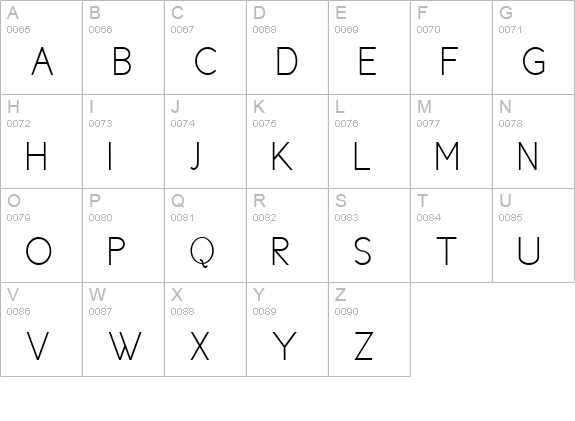
New Cicle Fina font is a modern and elegant typeface that exudes sophistication and style. With its delicate and refined letterforms, this font is perfect for creating a polished and professional look in your design projects. The thin strokes and graceful curves of New Cicle Fina add a touch of elegance to any text or headline. What's even better is that New Cicle Fina font is completely free to download at FontsMarket.com. You can easily access this beautiful typeface and enhance your designs without any cost. Whether you're working on a branding project, a website design, or any other creative endeavor, New Cicle Fina font will elevate your work to the next level. Don't miss out on this opportunity to add a touch of sophistication to your designs with the stunning New Cicle Fina font.